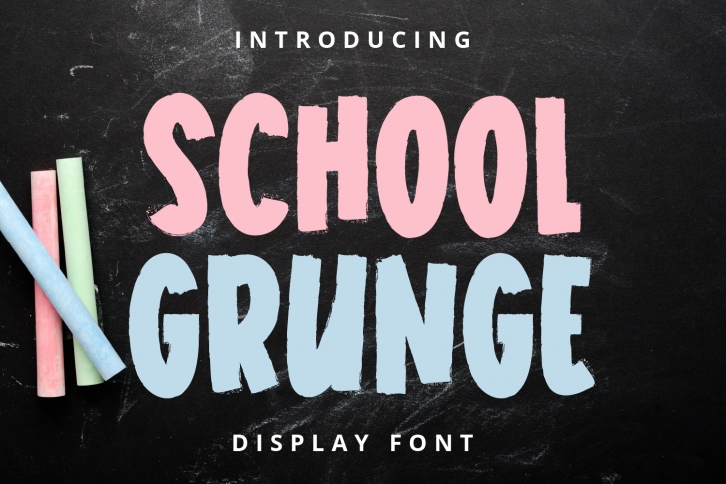
School Grunge is a cool, brushed and thick lettered display font. It embodies playfulness and authenticity and is the perfect choice for any children activity or school project.